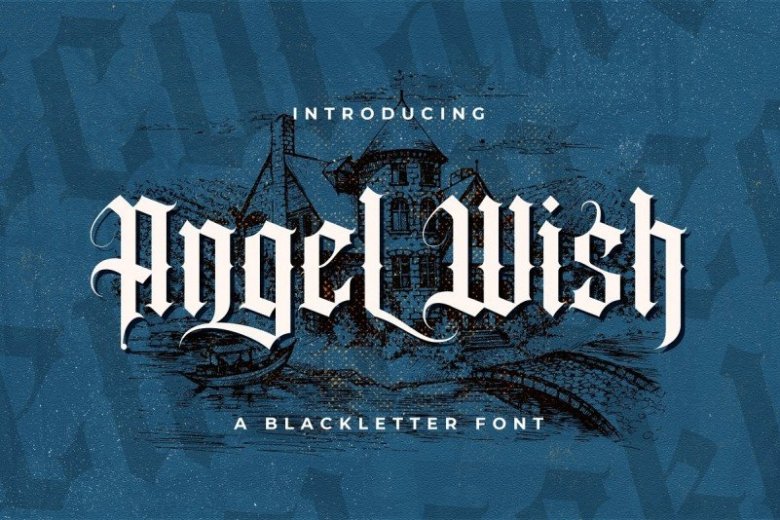
Angel Wish Blackletter Font
Hello everyone. Angel Wish Blackletter Font is an incredibly authentic and daring blackletter display font. It’s perfect for modern and retro designs. Made from font designer named StringLabs. Add this font to your favorite creative ideas and notice how it makes them stand out!. It is the best for logos, branding and quotes. Every letter has a unique and beautiful touch.